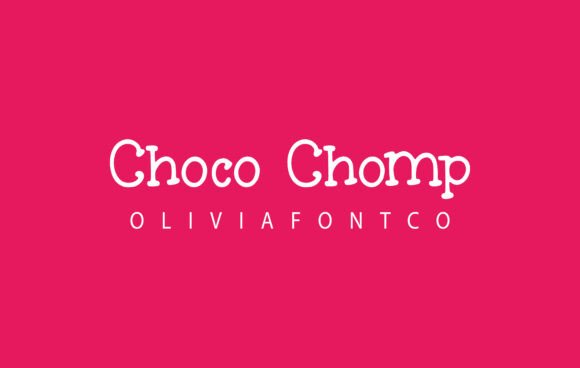
Introducing Choco Chomp Font: The Ultimate Handwritten Font for Creative Expression
In the world of typography, fonts play a crucial role in conveying the tone and personality of a brand or creative project. Among the numerous fonts available, Choco Chomp font stands out as a unique and captivating handwritten font that exudes a romantic touch. Designed to be a true favorite among designers and creative enthusiasts, Choco Chomp font has the potential to elevate your ideas to new heights. In this article, we’ll explore the features, benefits, and uses of Choco Chomp font, and why it’s an excellent choice for your next creative project.
What is Choco Chomp Font?
Choco Chomp font is an authentic handwritten font that boasts a romantic and elegant feel. Its distinctive characters are carefully crafted to convey a sense of warmth, friendliness, and approachability. This font is designed to be versatile, making it suitable for a wide range of applications, from magazine headlines and social media graphics to branding, wedding invitations, and more.
Key Features of Choco Chomp Font
- Legibility: Choco Chomp font is designed to be highly legible, making it perfect for both title and body text.
- Romantic Touch: The font’s unique characters and flourishes evoke a sense of romance and elegance.
- Handwritten Style: Choco Chomp font has a genuine handwritten feel, adding a personal touch to your designs.
- Versatility: This font can be used for various design projects, including magazine headlines, social media graphics, branding, wedding invitations, and more.
Benefits of Using Choco Chomp Font
Using Choco Chomp font in your designs offers several benefits:
- Unique Identity: Choco Chomp font helps you create a distinctive visual identity for your brand or project.
- Emotional Connection: The font’s romantic and elegant feel can help you connect with your audience on an emotional level.
- Creative Freedom: Choco Chomp font’s versatility gives you the creative freedom to experiment with different design ideas.
- Time-Saving: With Choco Chomp font, you can quickly create professional-looking designs without spending hours on typography.
Uses of Choco Chomp Font
Choco Chomp font is an excellent choice for various design projects, including:
- Magazine Headlines: Use Choco Chomp font to create eye-catching headlines that grab readers’ attention.
- Social Media Graphics: Add a touch of elegance and sophistication to your social media graphics with Choco Chomp font.
- Branding: Establish a strong brand identity with Choco Chomp font, perfect for logos, business cards, and letterheads.
- Wedding Invitations: Create beautiful and romantic wedding invitations with Choco Chomp font.
- Cards and Stationery: Use Choco Chomp font to design lovely cards, stationery, and gift tags.
Tips for Using Choco Chomp Font Effectively
To get the most out of Choco Chomp font, follow these tips:
- Pair with Other Fonts: Combine Choco Chomp font with other fonts to create a unique and visually appealing typography.
- Experiment with Colors: Try different color schemes to find the perfect match for your design and brand.
- Pay Attention to Spacing: Ensure adequate spacing between characters and lines to maintain readability.
- Be Creative: Don’t be afraid to experiment and try new things with Choco Chomp font.
Choco Chomp font is a versatile and captivating handwritten font that can elevate your creative projects to new heights. Its romantic touch, legibility, and versatility make it an excellent choice for designers, entrepreneurs, and creative enthusiasts. With Choco Chomp font, you can create stunning designs that leave a lasting impression on your audience. So why wait? Discover the creative possibilities with Choco Chomp font today!